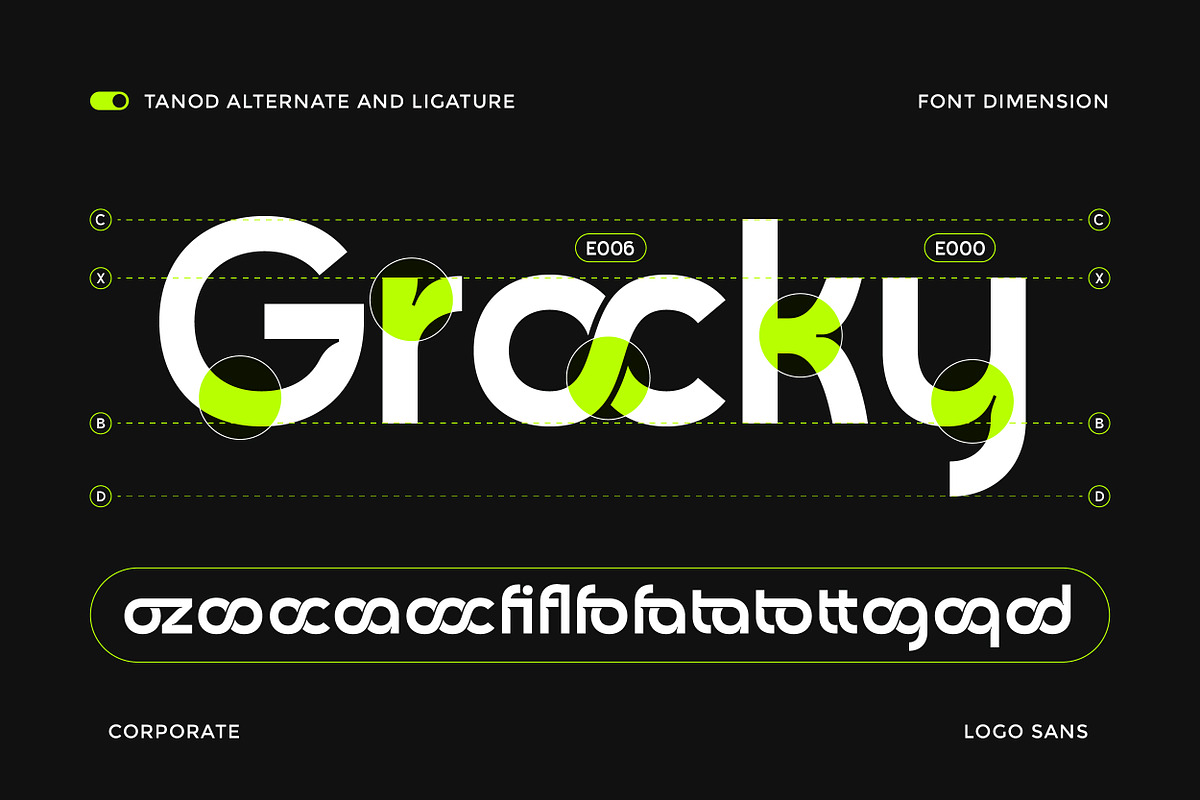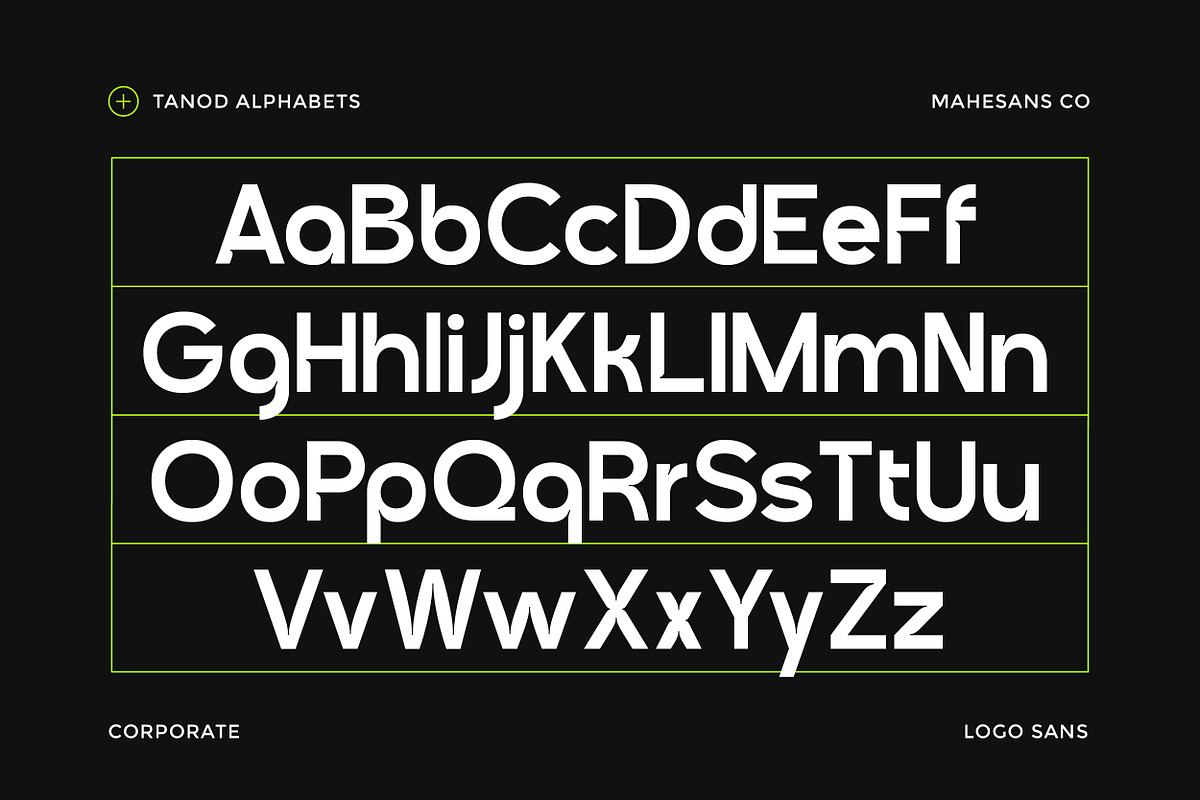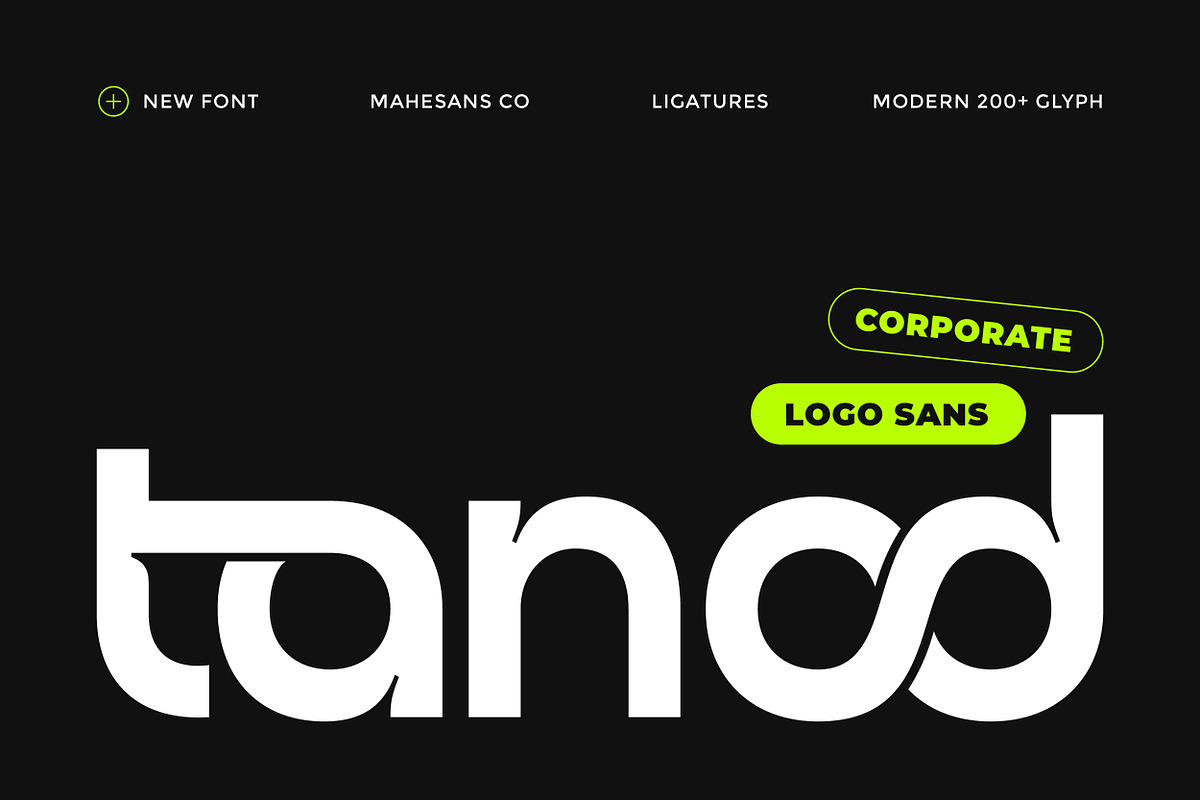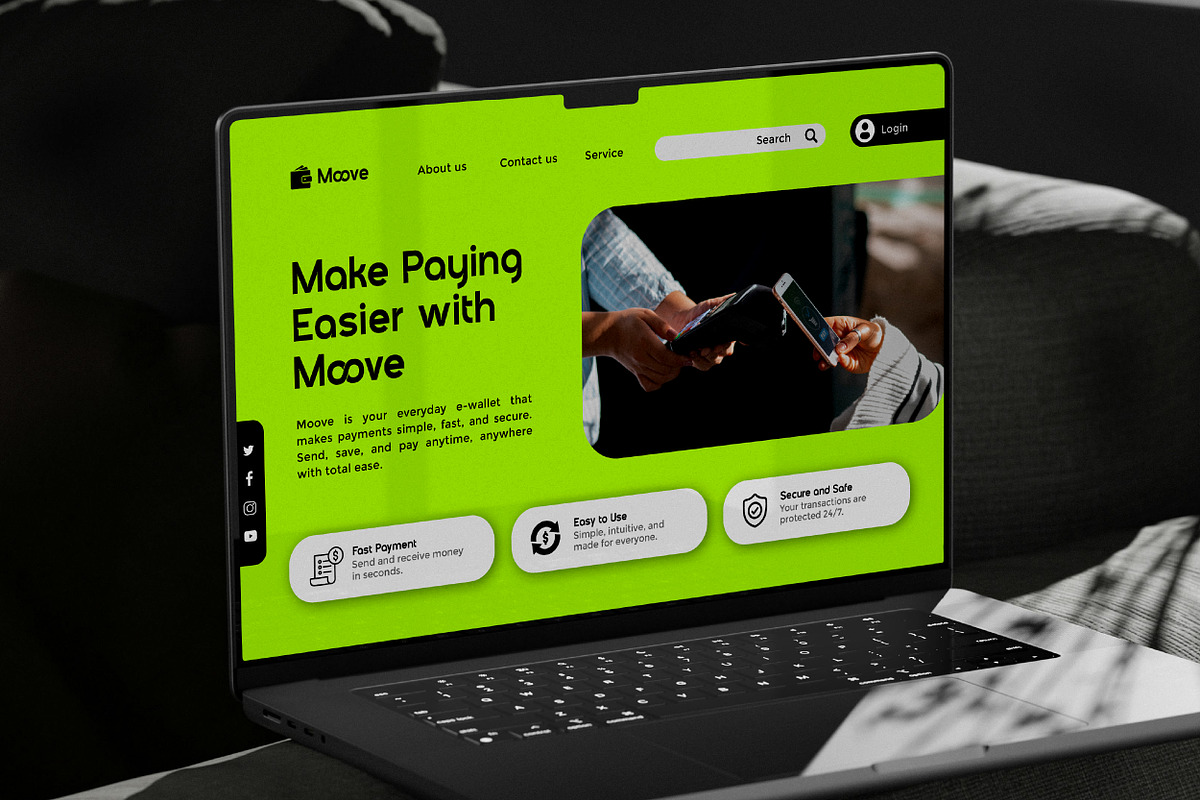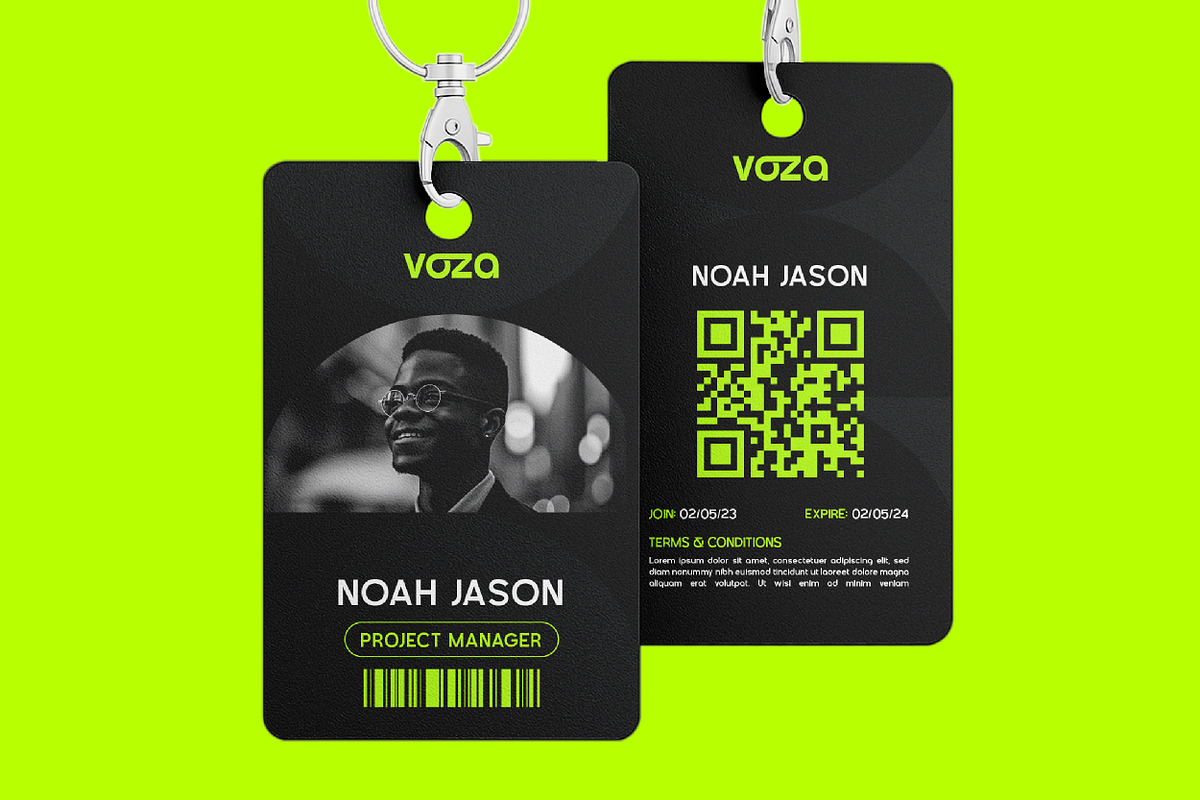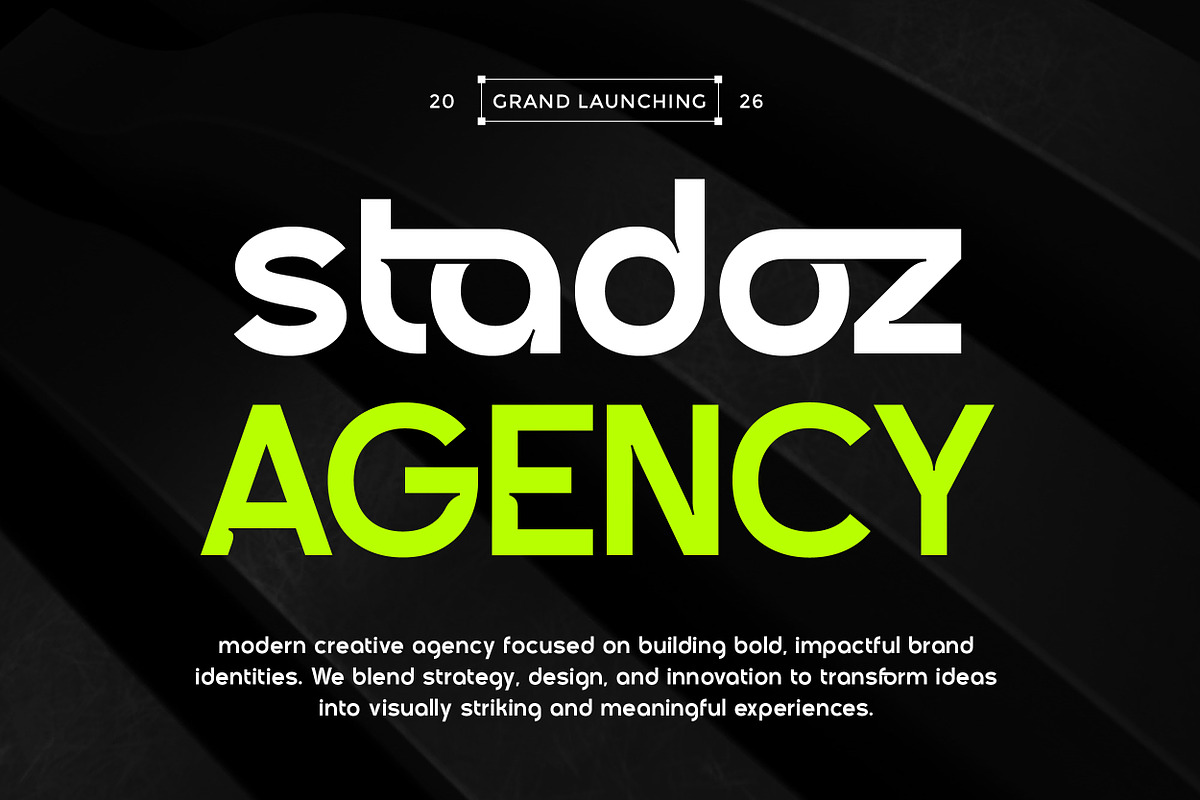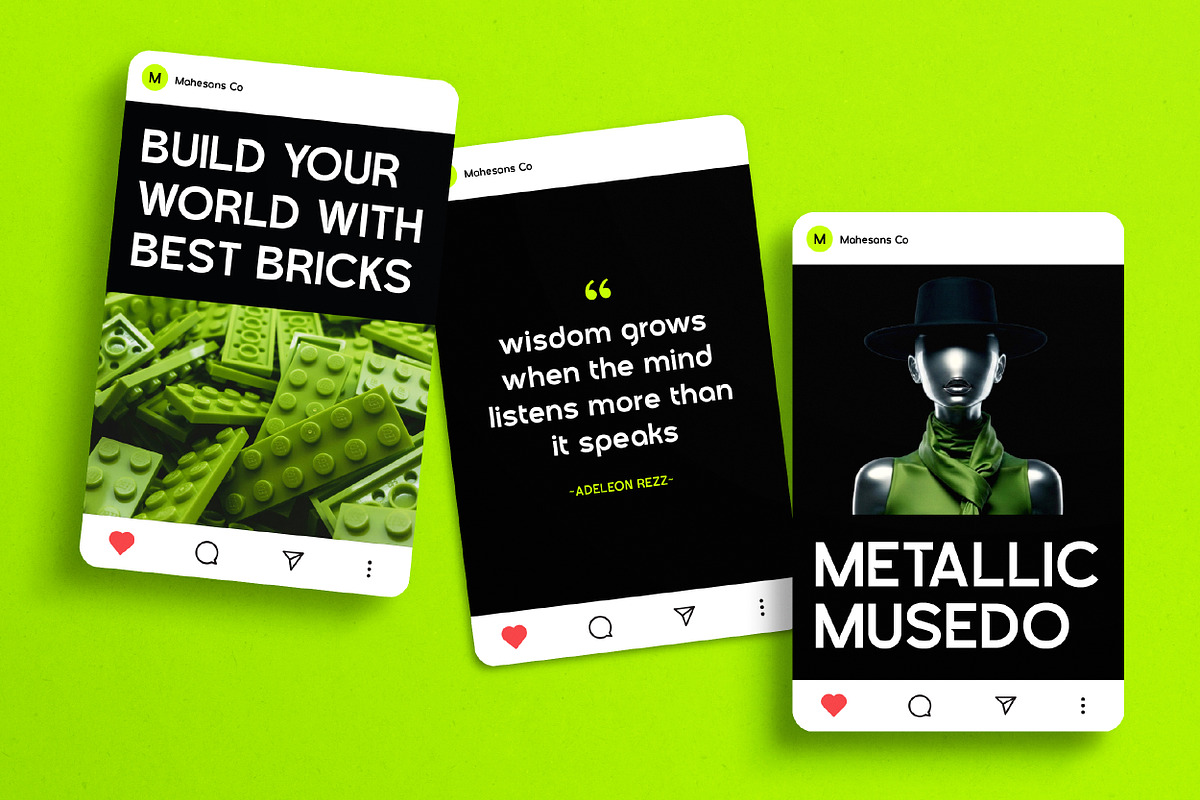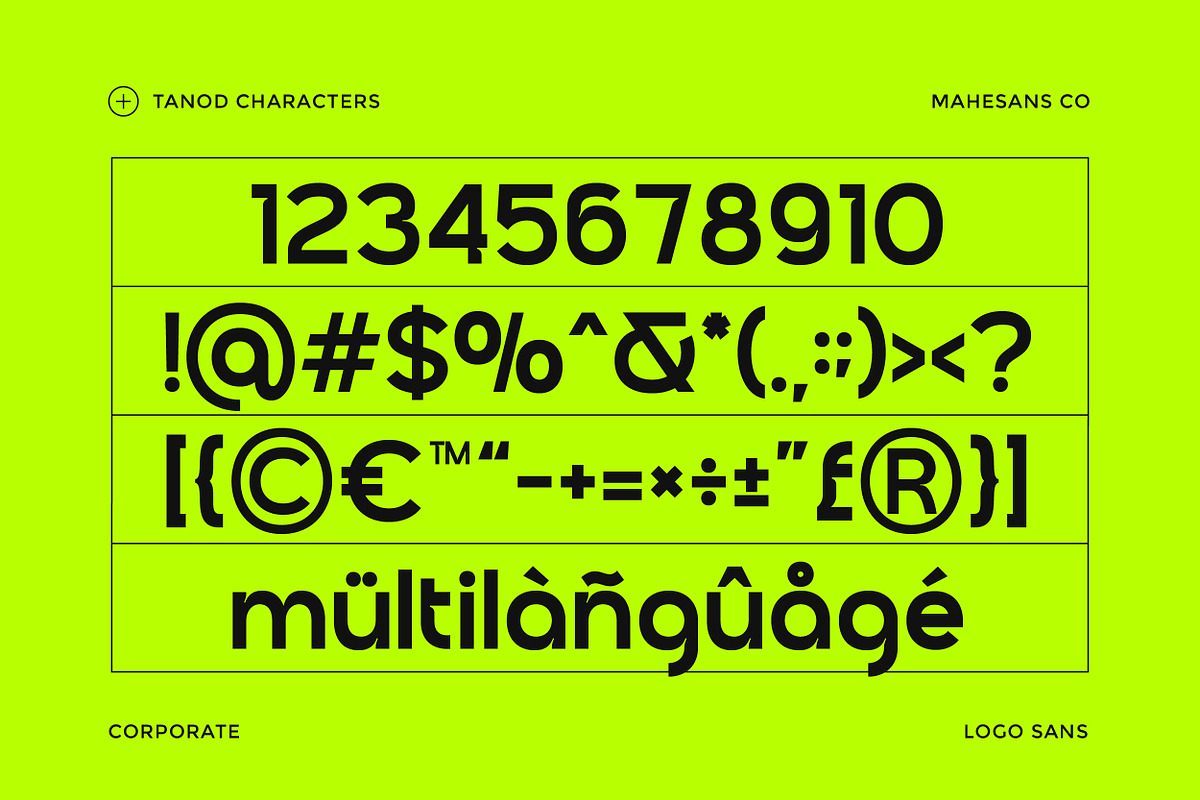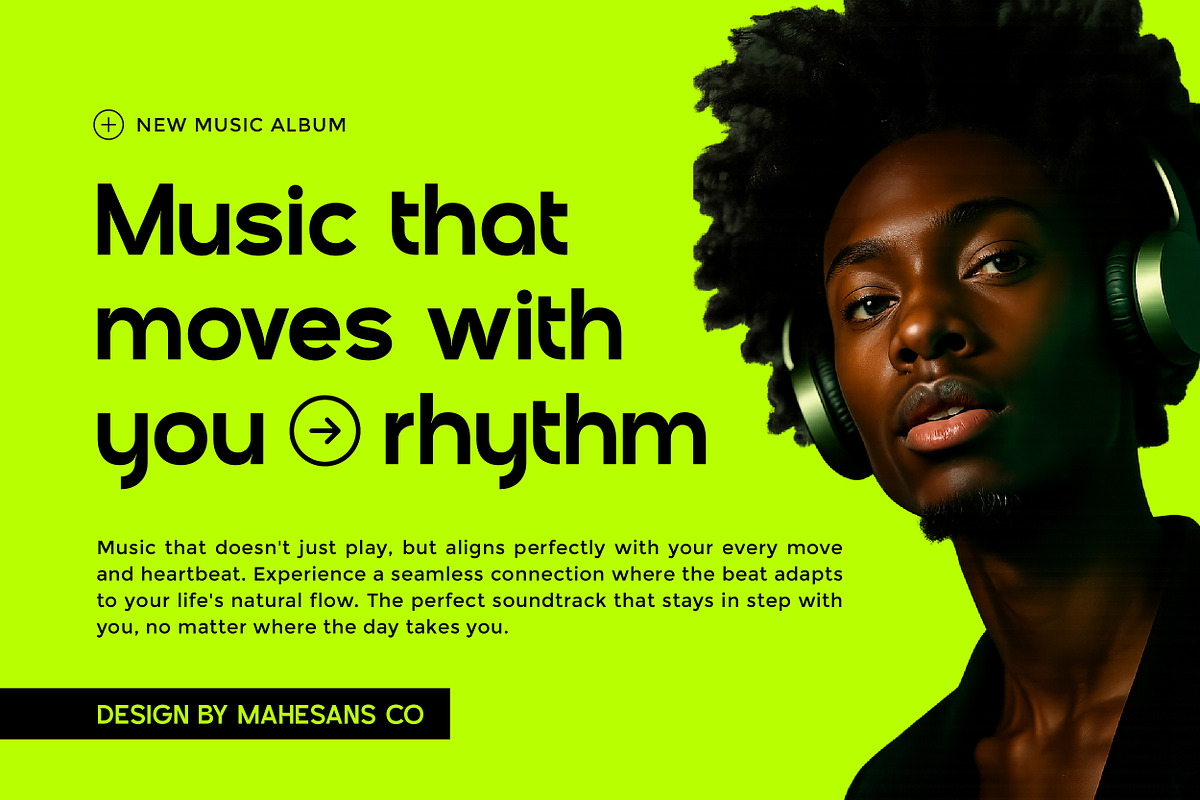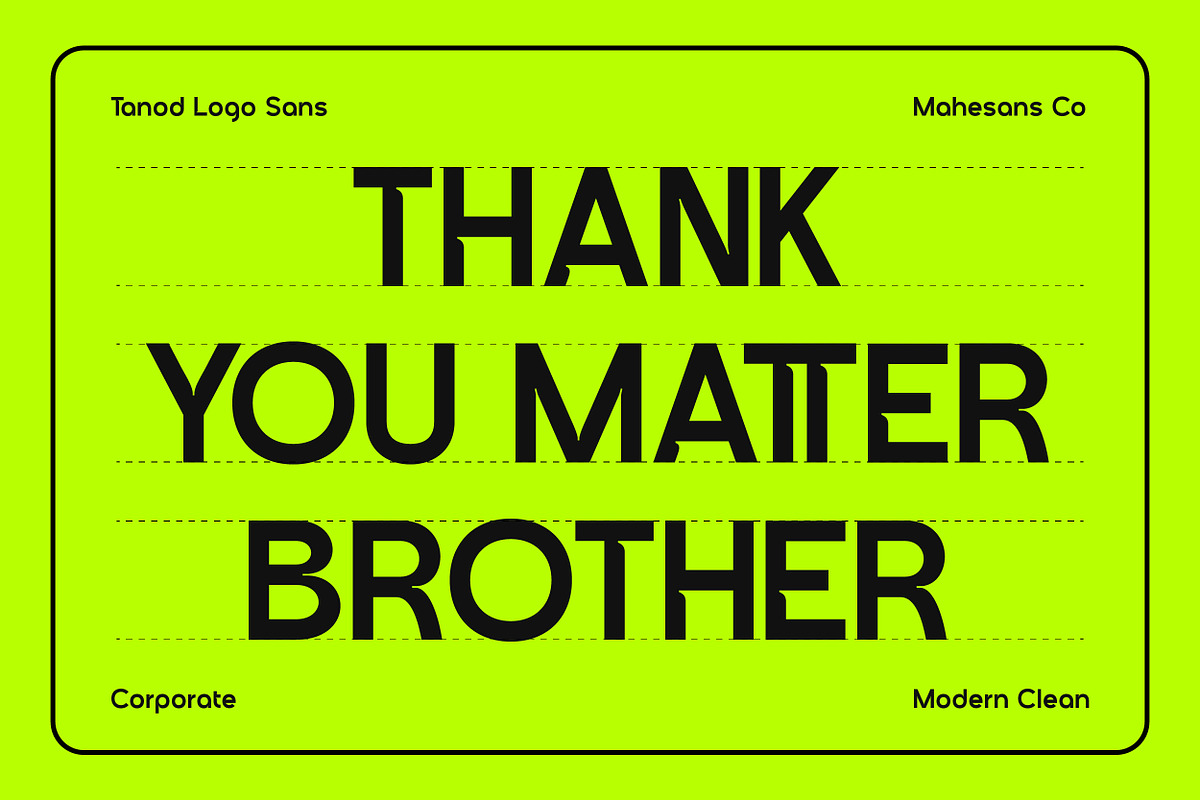
Tanod – Modern Corporate Logo Sans
Tanod is a modern sans serif crafted with one goal. To make logos look expensive without trying too hard.
Built with a clean geometric structure and subtle character quirks, Tanod balances corporate professionalism with a distinctive edge. The letterforms are sharp, confident, and highly legible making it perfect for branding systems, logotypes, tech startups, and modern business identities.
What makes Tanod stand out isn’t just its clean look, it’s the carefully designed alternates and ligatures that add uniqueness without breaking consistency. You get flexibility when you need it, and simplicity when you don’t.
This isn’t just another generic sans. It’s designed to hold attention in big sizes and stay clear in small ones, exactly what a logo font should do.
- Multilanguage